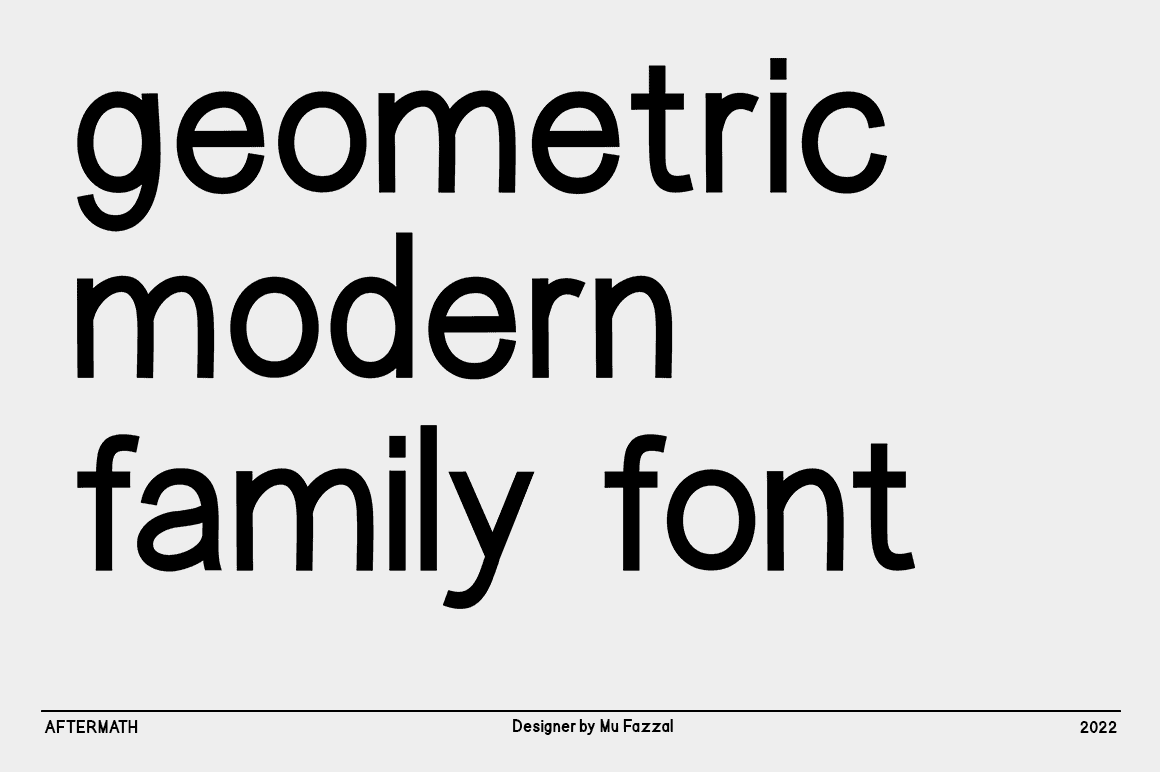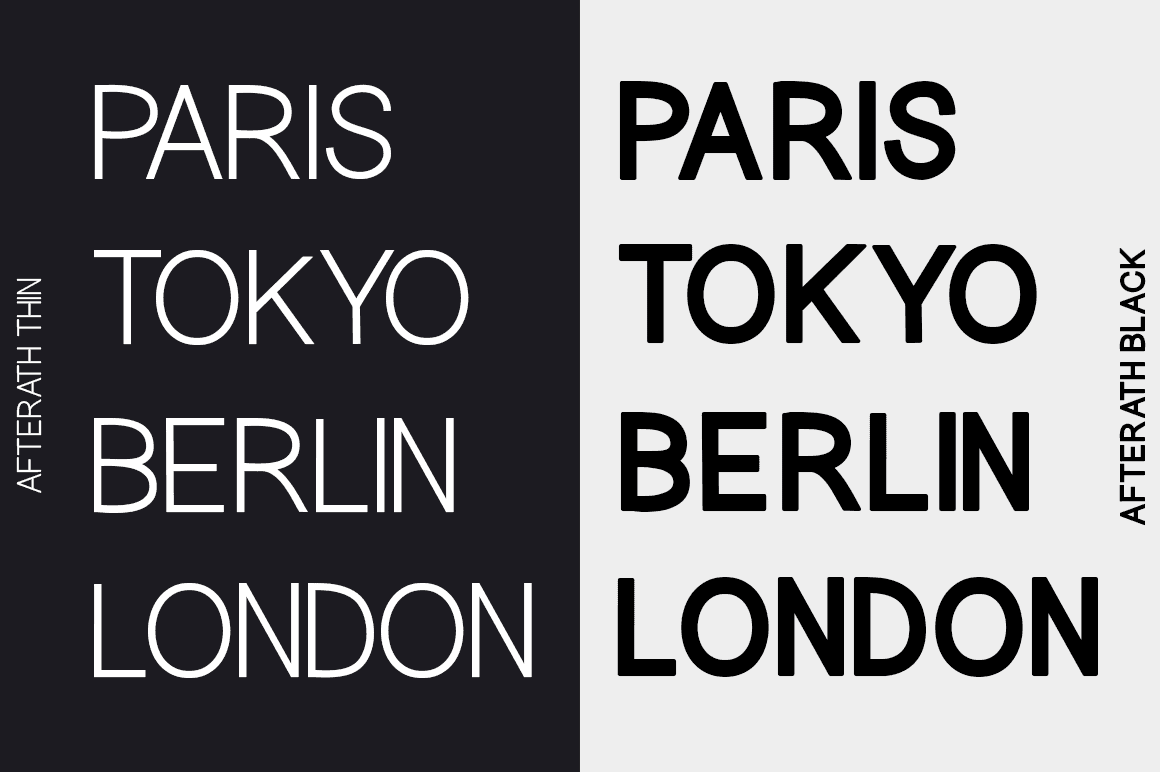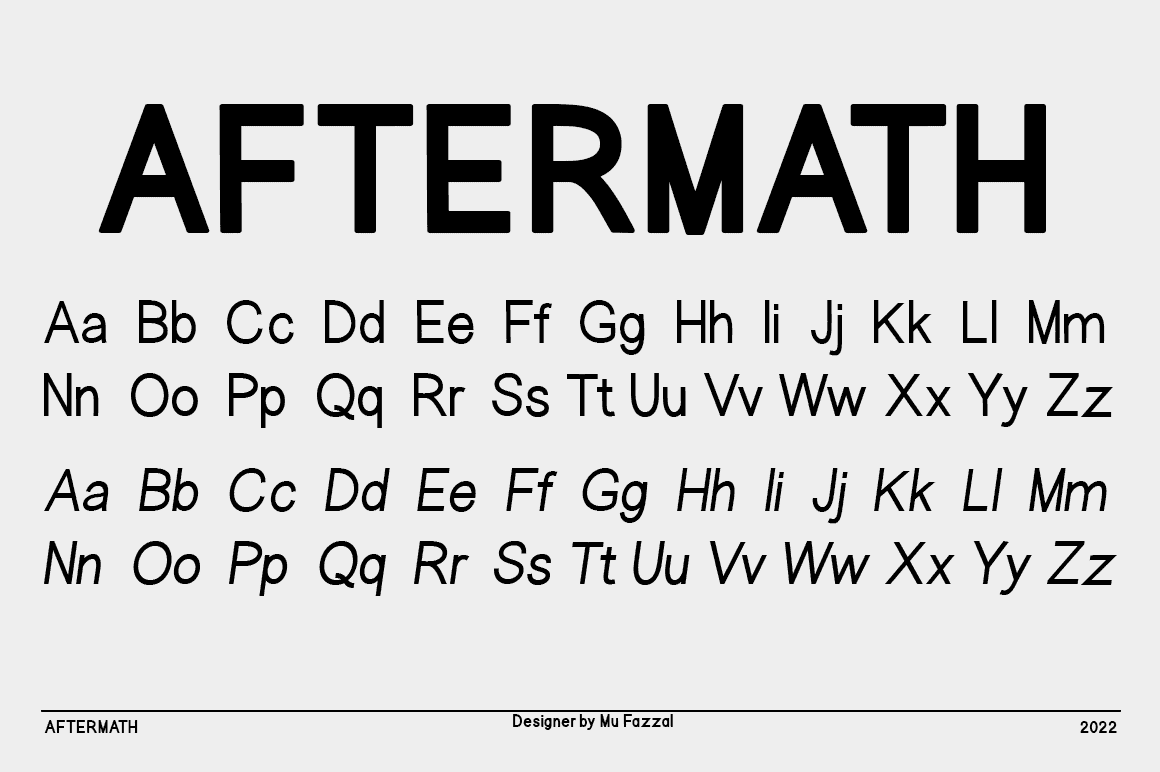
Aftermath – Modern Sans-Serif Font Family Pack
Aftermath is a modern sans serif font family featuring a geometric design and a large selection of styles and font variations which lend it versatility to perform greatly in both print and digital media.
The font family features 4 different widths, including Normal, Narrow, and Condensed as well as matching true Italics, 40 fonts in total with Thin, Light, Regular, Medium, Bold, Extrabold and Black weights.
- The complete Aftermath font family
- Modern sans serif font with geometric design
- 40 font variations in total
- Four different widths: Normal, Italic, Narrow & Condensed
- Weights include Thin, Light, Regular, Medium, Bold, Extrabold, and Black
- Multilingual support
- Full character sets: lowercase, uppercase, numbers, punctuations & special symbols
Aftermath Modern Sans Serif Font